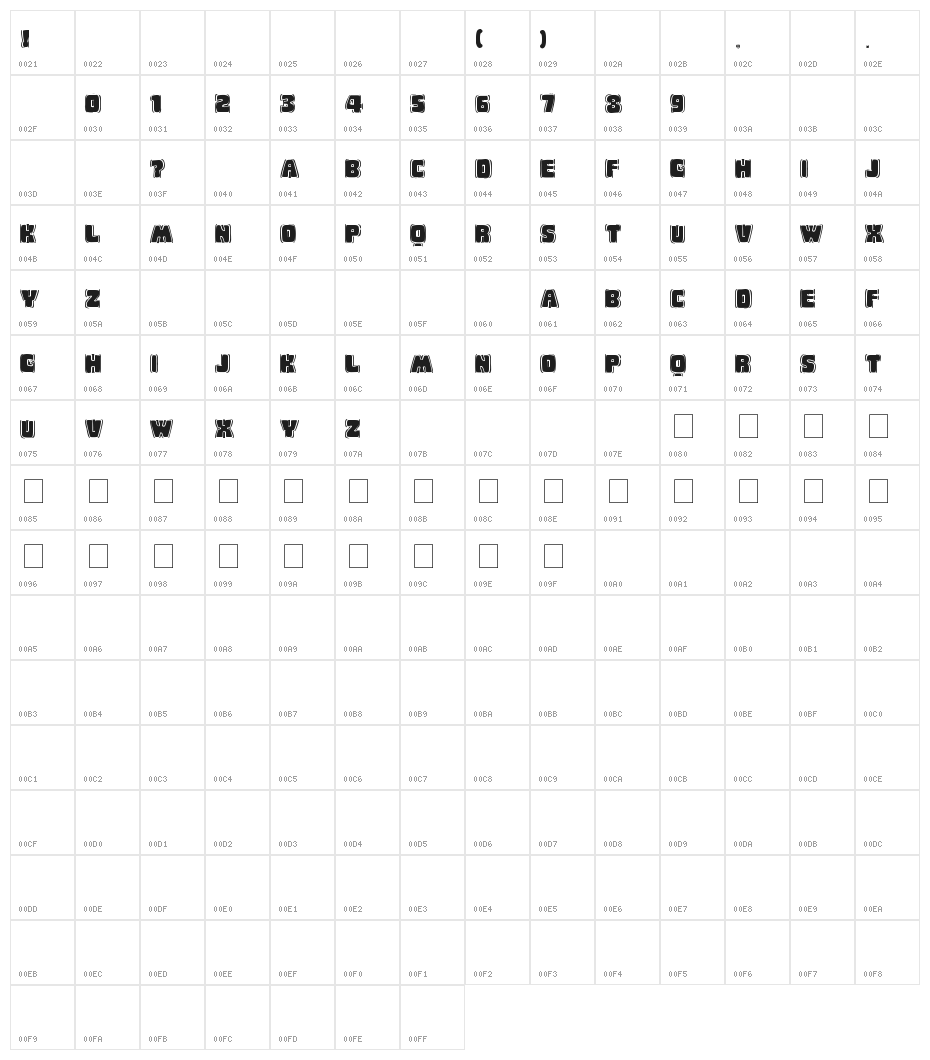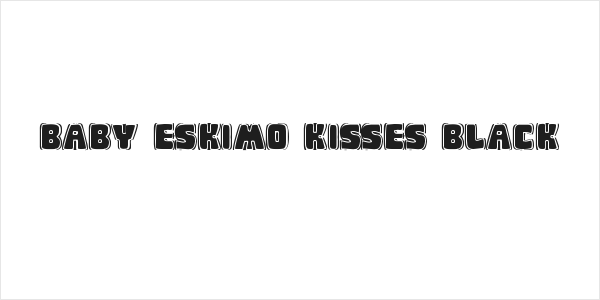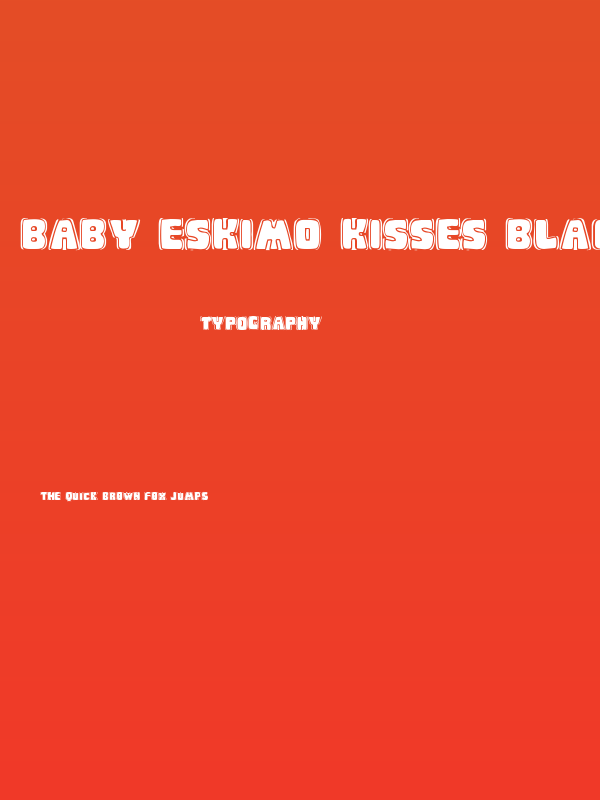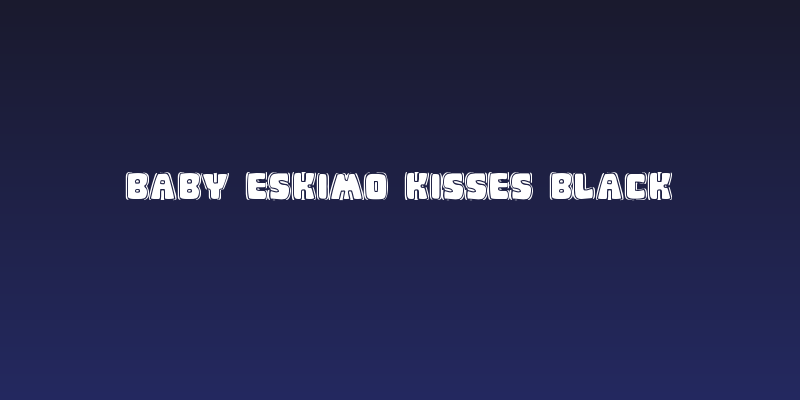
Baby Eskimo Kisses Black Font
Baby Eskimo Kisses Black Description
This font features a bold and playful style with a strong presence. The characters are thick and rounded, giving them a friendly and approachable appearance. Each letter is outlined with a contrasting border, enhancing its visibility and adding a touch of whimsy. The font maintains a consistent weight throughout, ensuring readability while retaining its decorative charm. It is well-suited for projects that require a fun and engaging aesthetic, such as children's books, playful branding, or eye-catching headlines.
| Overall Style | Playful, Decorative |
| Proposed Projects | Ideal for children's books, playful branding, and eye-catching headlines. |